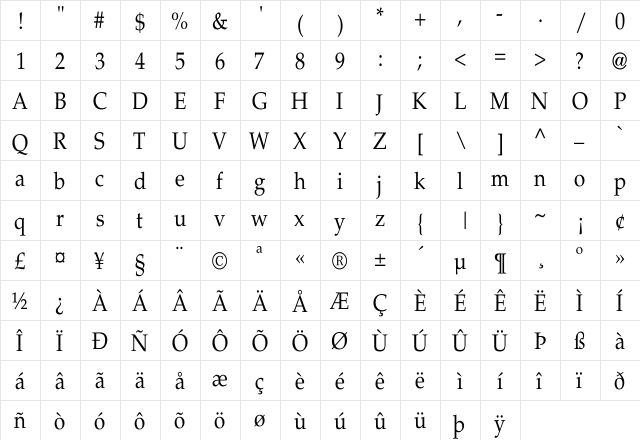
Palatino-Roman Th Regular
Design Context for Palatino-Roman Th Typeface
Palatino-Roman Th offers clean, dependable letterforms without strong stylistic allegiance, making it a practical choice for designers who need flexibility.